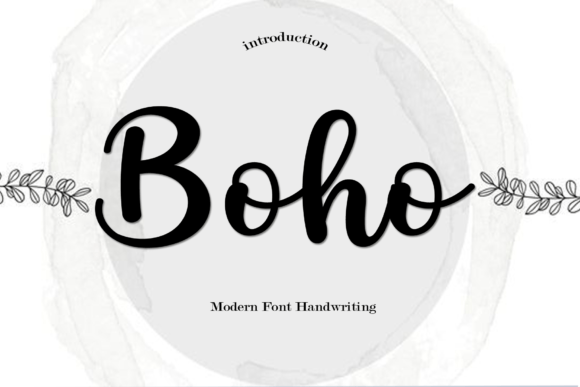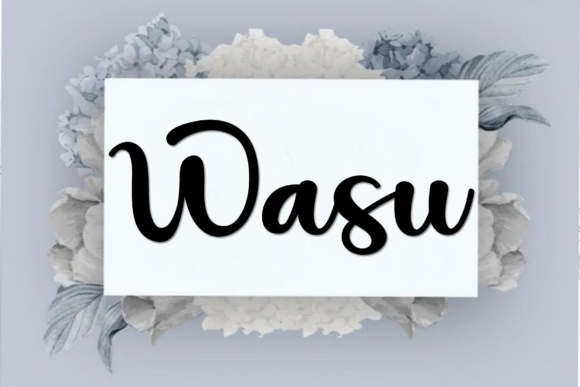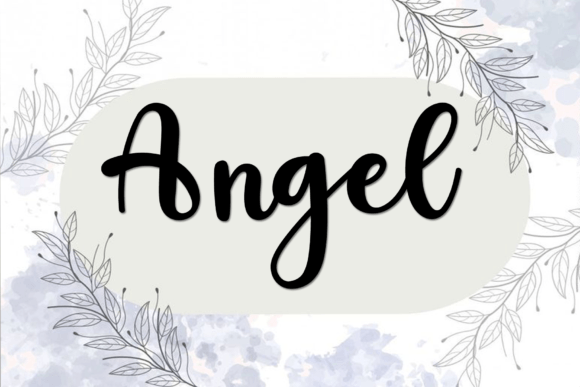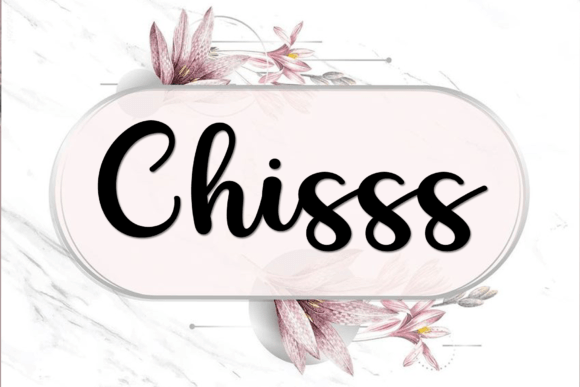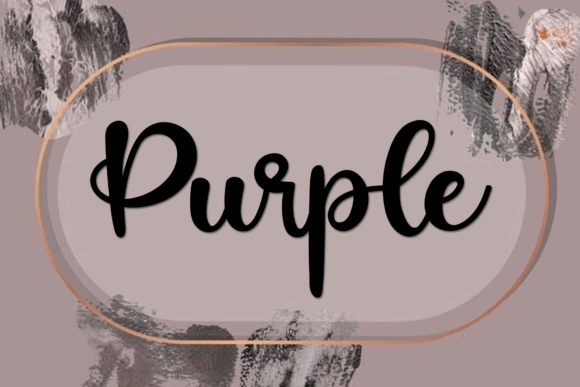
Boho Font
About Boho Font
Boho font is an elegant handwritten typeface designed to add a charming and personal touch to a wide range of design projects. Its graceful strokes and flowing lines make it a perfect choice for creative works that require warmth and sophistication. Whether you are crafting wedding invitations or designing unique logos, this font provides an authentic handwritten feel that enhances every detail.
Perfect for Wedding Invitations and Greeting Cards
One of the best uses for Boho font is in wedding invitations and greeting cards. The delicate, elegant style lends a romantic and heartfelt quality to your text. It helps you convey emotions with beauty and class, making your special occasions even more memorable.
Ideal for Branding and Business Designs
Boho font also shines in branding projects. It’s suitable for logos, business cards, and product packaging where a handcrafted and stylish touch is essential. This font’s versatility allows it to complement various brand identities, whether modern, rustic, or vintage.
Versatile Use in Creative Projects
Beyond weddings and branding, Bohofont works well in social media posts, quotes, posters, and stationery. Its unique charm and legibility make it adaptable to numerous creative needs. Designers can use Bohofont to bring an inviting and refined style to any project.
Why Choose Boho Font?
Choosing Bohofont means selecting a typeface that combines elegance, charm, and versatility. It’s a timeless handwritten font that elevates your designs with a natural, personal flair. Whether you’re a professional designer or crafting a personal project, Bohofont will add sophistication and warmth.